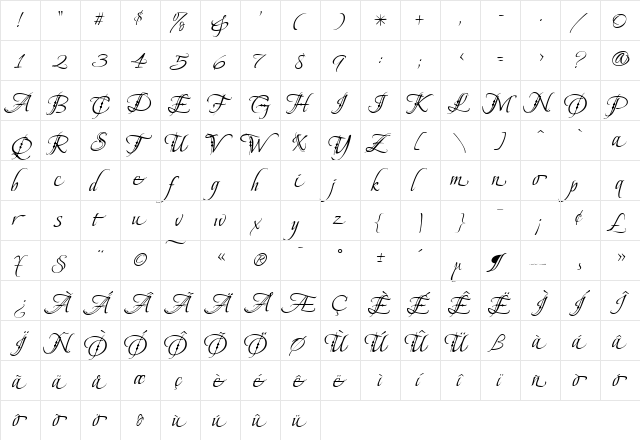
BeauRivageTwo Regular
Design Context for BeauRivageTwo Typeface
BeauRivageTwo is a composed and adaptable typeface that performs quietly and consistently across a wide range of design contexts.